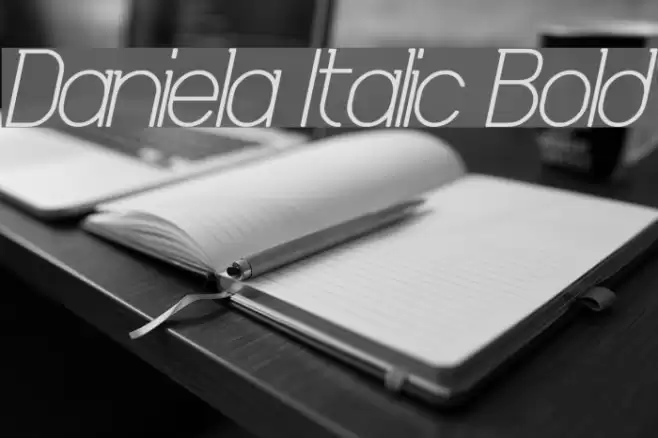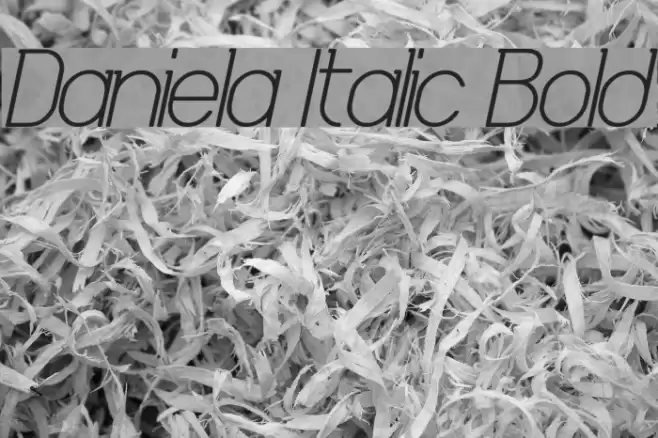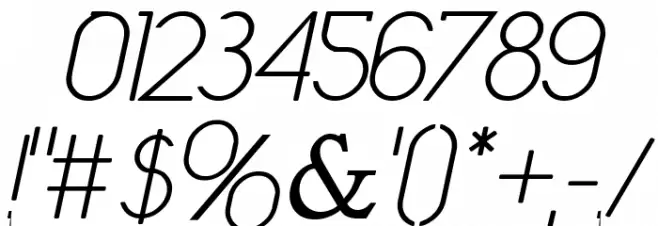
Daniela Italic Bold Font
Daniela Italic Bold Description
This font features a sleek, italicized style with a modern and elegant appearance. The characters are elongated and slightly slanted, giving a sense of motion and fluidity. The uppercase and lowercase letters maintain a consistent stroke width, contributing to a clean and uniform look. The numerals and special characters are designed to complement the alphabet, ensuring readability and aesthetic harmony. This font is well-suited for projects that require a touch of sophistication and modernity.
A sleek, italicized font with a modern and elegant style from Uncategorized fonts.
- Proposed Projects: Ideal for branding, fashion magazines, modern websites, and elegant invitations.
- Use Case: Headlines, Logos, Branding